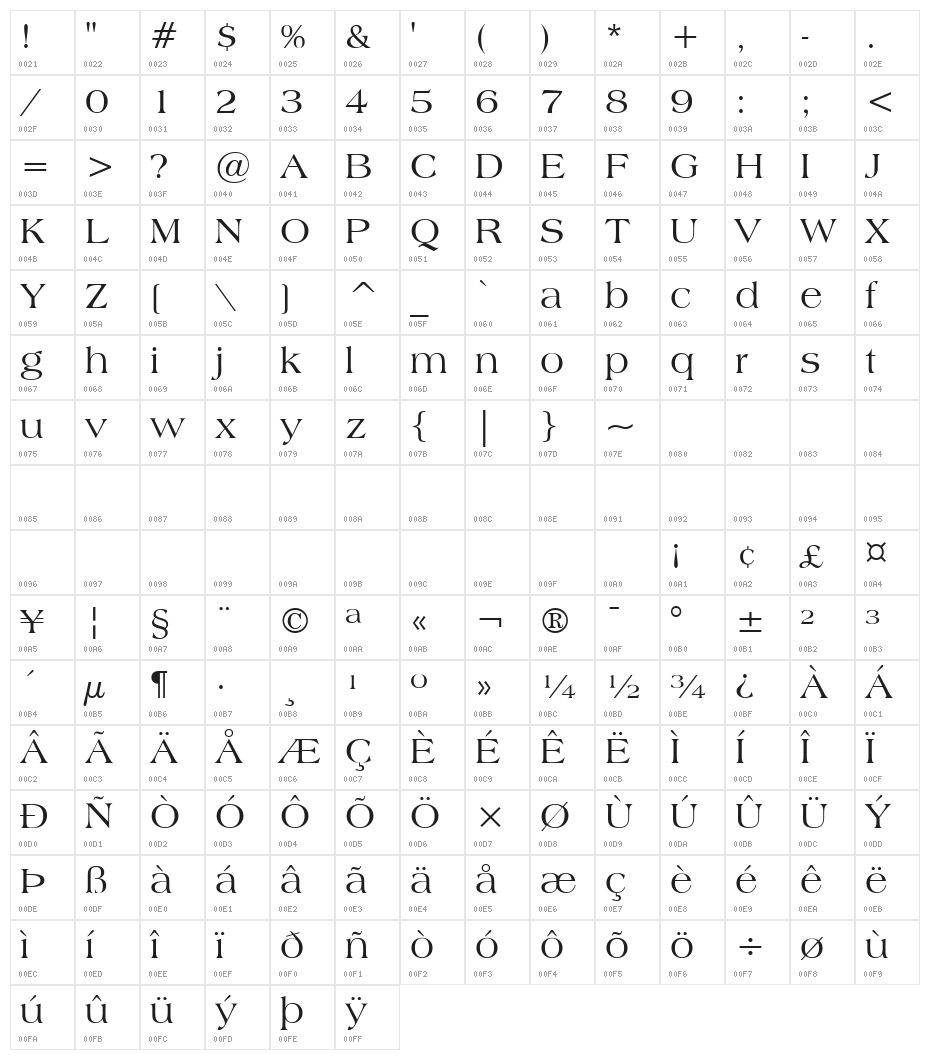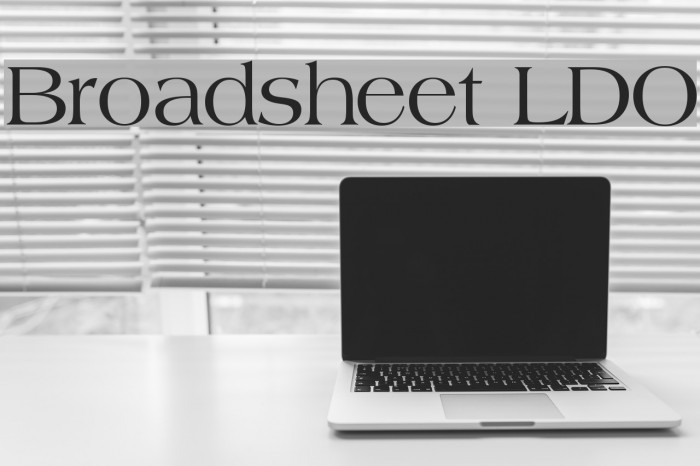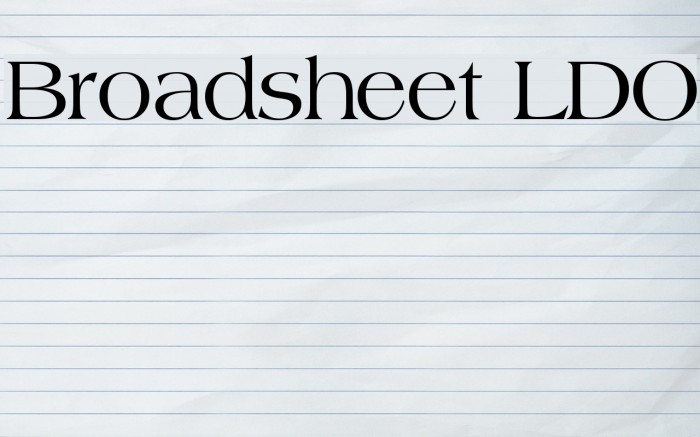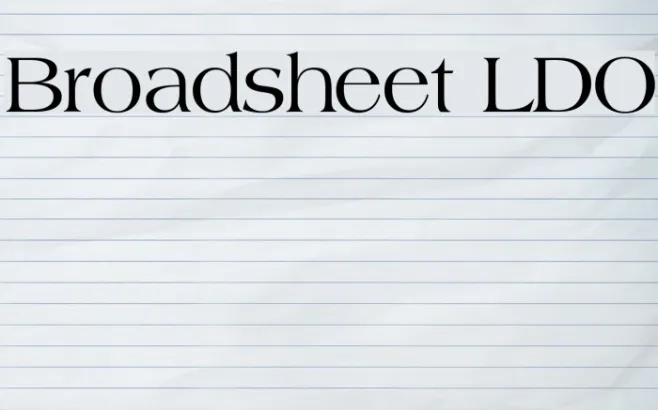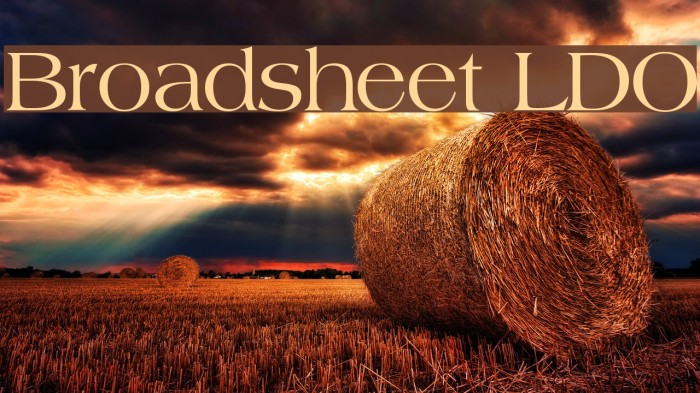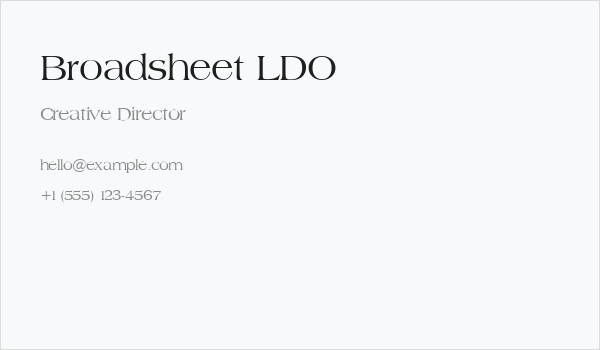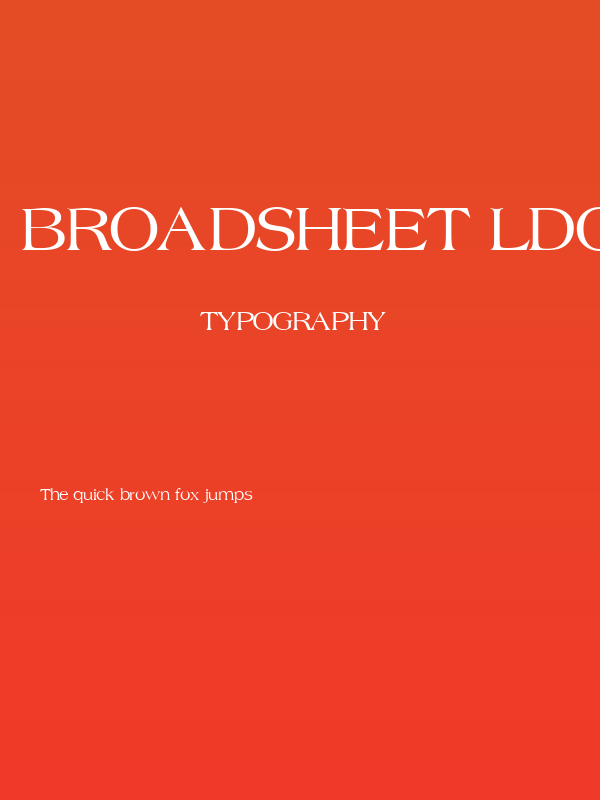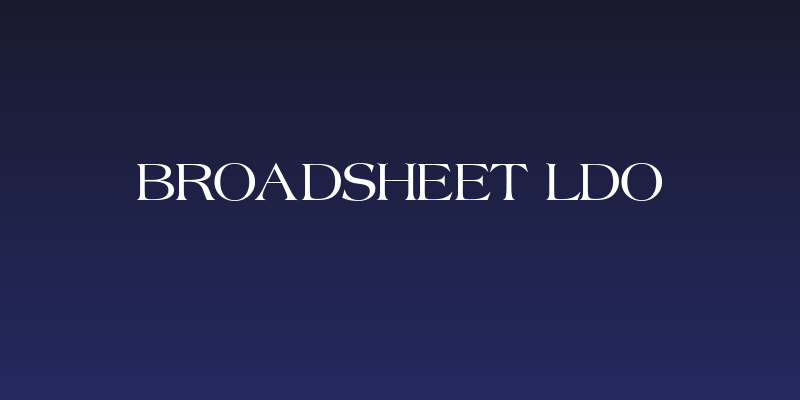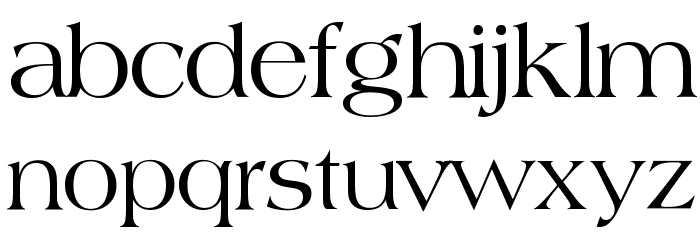
Broadsheet LDO Font
Broadsheet LDO Description
This font features a classic serif style with elegant, elongated strokes and a refined appearance. The uppercase letters exhibit a strong presence with sharp serifs and a balanced weight distribution, while the lowercase letters maintain a harmonious flow with slightly rounded edges. The numerals are distinct and easy to read, complementing the overall sophisticated look. Special characters are designed with the same attention to detail, ensuring consistency throughout. This font is suitable for projects that require a touch of elegance and tradition.
| Proposed Projects | Ideal for editorial design, book covers, formal invitations, and branding materials that require a sophisticated touch. |